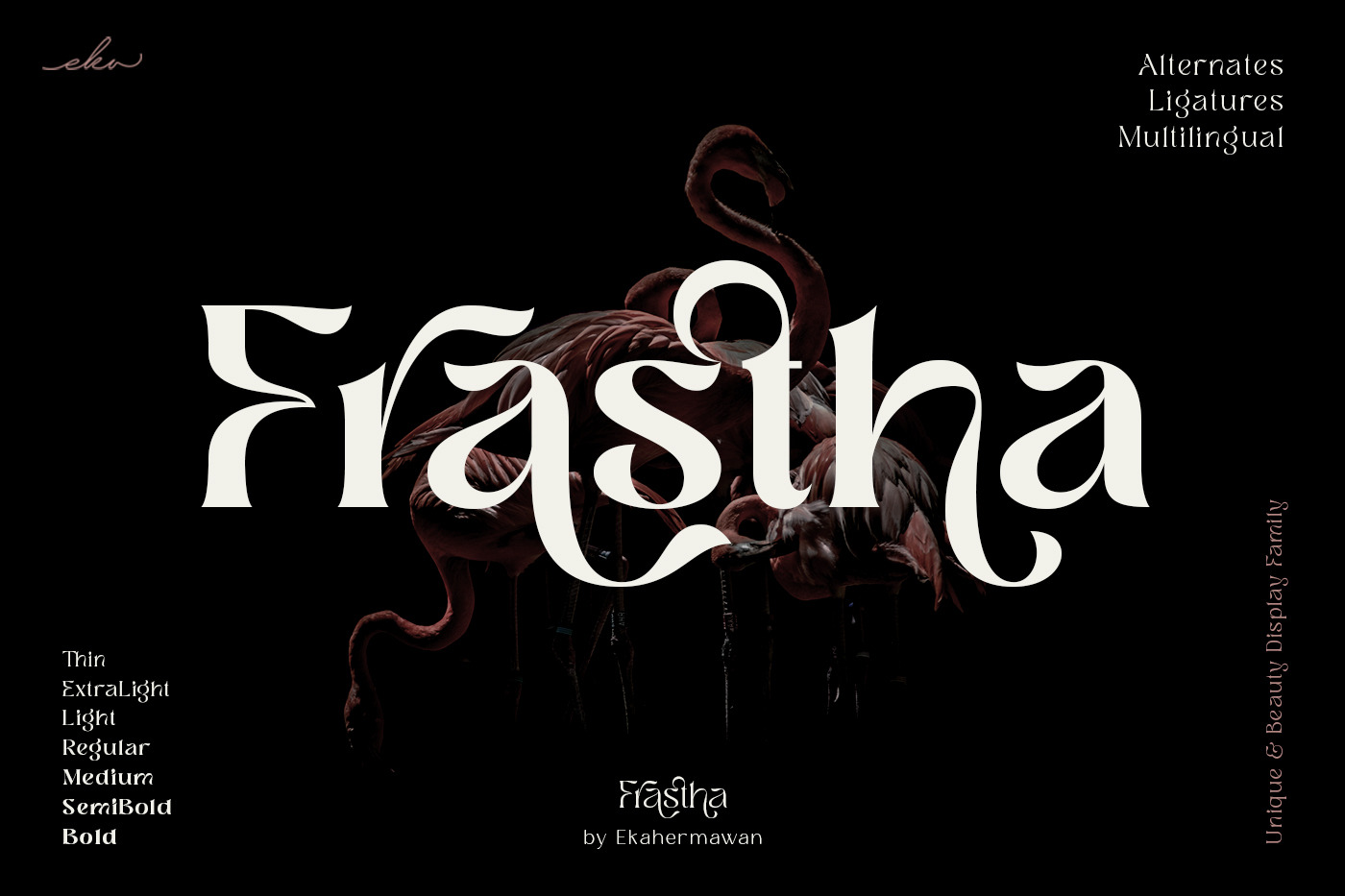
Frastha - Unique Display Serif Font
Frastha font is unique and beauty display family with 7 weights from Thin to Bold. Frastha also includes a bunch of alternate characters (PUA Encoded) and ligatures to give you a wide range for create an excellent typographic design results for many different projects such as logo, branding, poster, magazines, labels, merchandise, invitation, presentation, advertising, quotes and so much more!
- Playfull to use (with ligatures and alternates options)